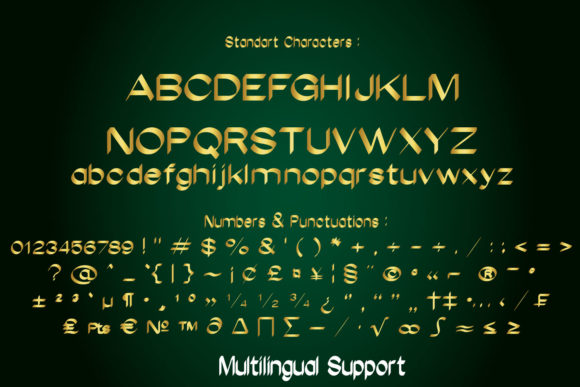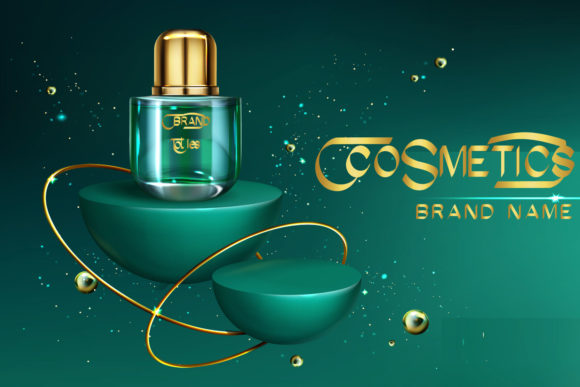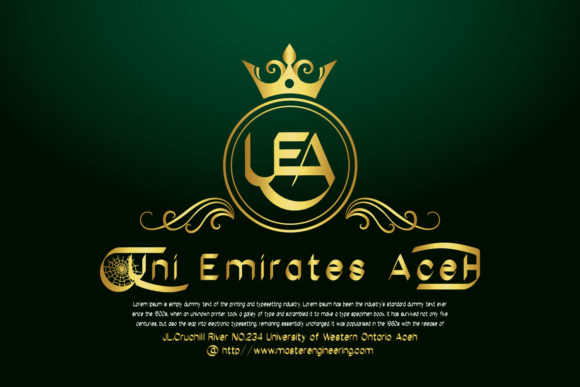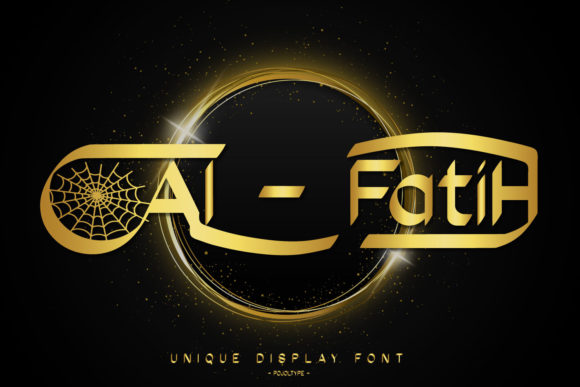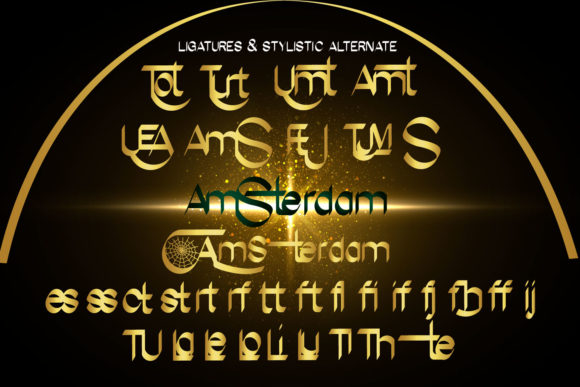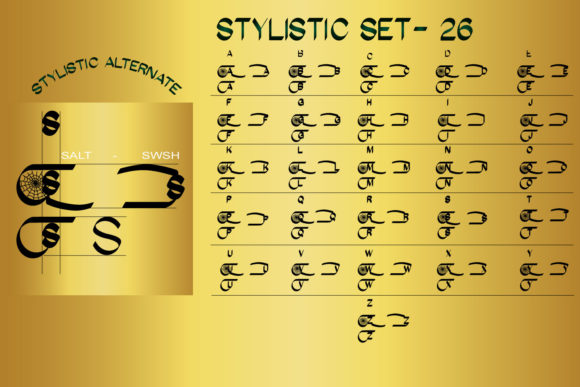
The Alfatih Font: A Modern Classic for Creative Projects
Have you ever been in the middle of a design project, and suddenly, you realize that the font you’ve been using just isn’t cutting it? I recall a particularly frustrating experience while working on a Quran cover design project. My client wanted a font that was both elegant and modern, with a touch of calligraphy. After hours of searching, I stumbled upon the Alfatih font, and it was love at first sight! ✨
Inspired by calligraphy writing, the Alfatih font boasts modern classic characters that can elevate any design project. From calligraphy book writing to film titles, t-shirt designs, magazine titles, and more, this font is a versatile gem that deserves to be in every creative’s toolkit.
- ✨ Elegant and modern design with a touch of calligraphy
- ✅ Highly versatile for various design projects, including print and digital media
- ⚡️ Easy to read, even in smaller font sizes
- 🌈 Beautifully crafted to add a touch of sophistication to any design
While the Alfatih font is an excellent choice, there are a few minor quirks to be aware of: 🤔
- ⚠️ Limited availability of stylistic alternates, which might limit its use in certain design projects
- ⚠️ May require manual kerning for optimal results in certain design applications
The Designer Inspiration Behind Alfatih Font
The Alfatih font was created by a talented designer who drew inspiration from traditional Arabic calligraphy. With a passion for modernizing classic designs, the designer aimed to create a font that would be both elegant and versatile. The result is a beautiful, modern classic font that’s perfect for a wide range of design projects.
| Font Name | Alfatih Font |
| Author | PojolType |
Q: What is the Alfatih font inspired by?
A: The Alfatih font is inspired by traditional Arabic calligraphy, with a modern twist.
Q: What design projects is the Alfatih font suitable for?
A: The Alfatih font is suitable for a wide range of design projects, including calligraphy book writing, Quran cover writing, film titles, t-shirt designs, magazine titles, web design, posters, book titles, logos, and more.
Q: Is the Alfatih font easy to read?
A: Yes, the Alfatih font is designed to be highly legible, even in smaller font sizes.